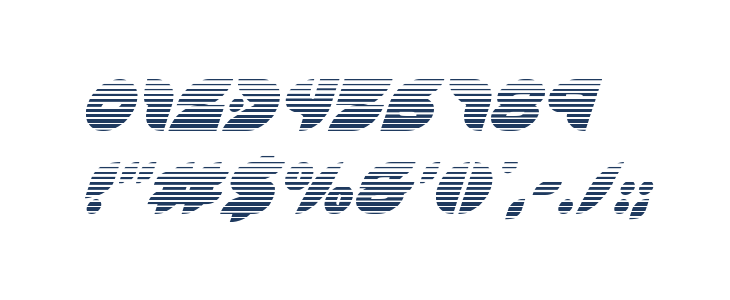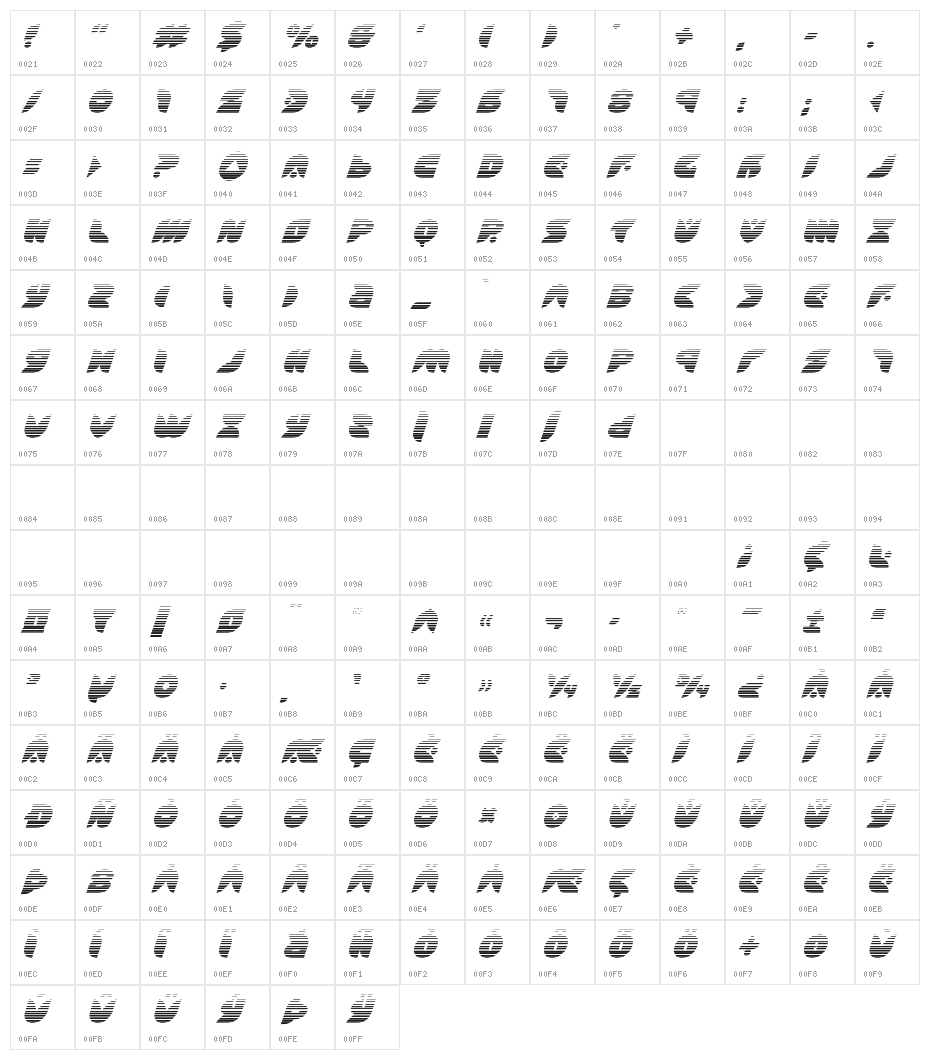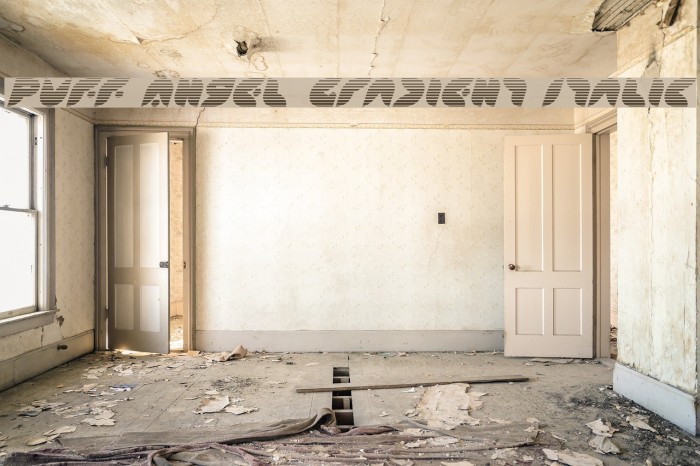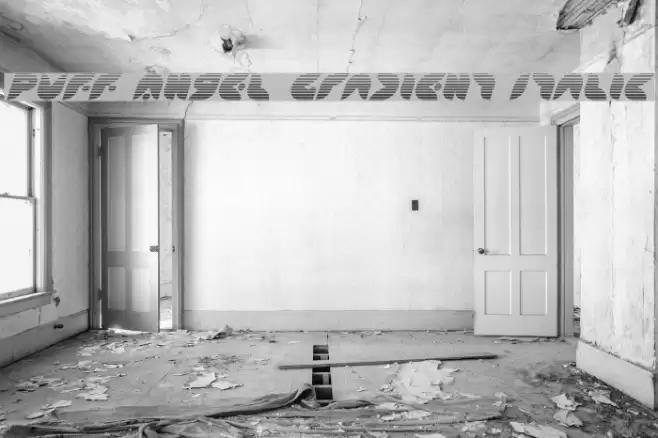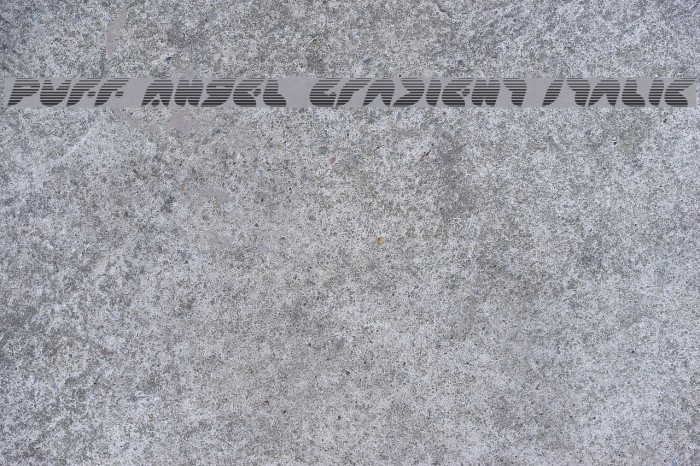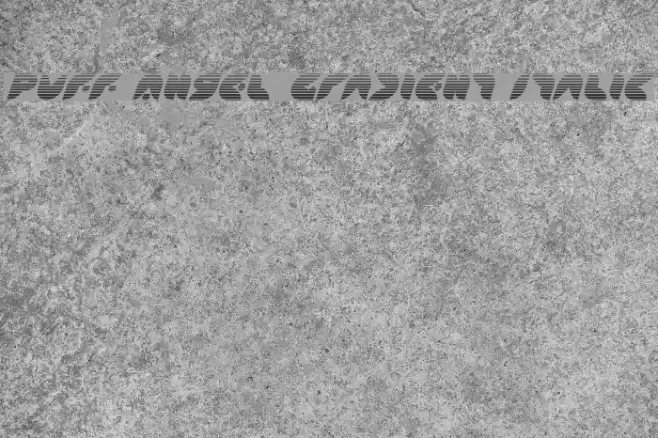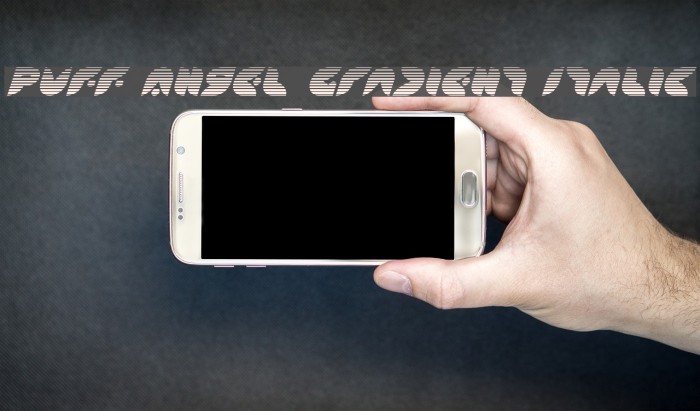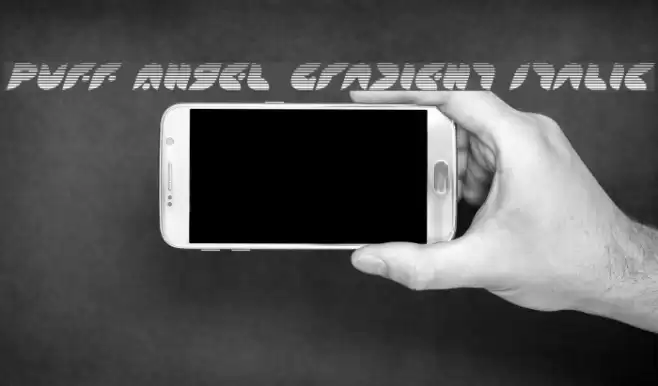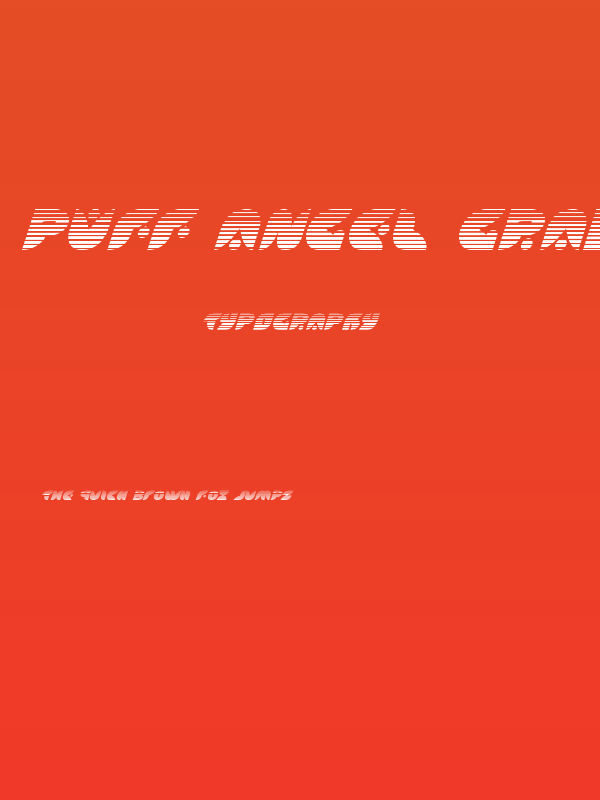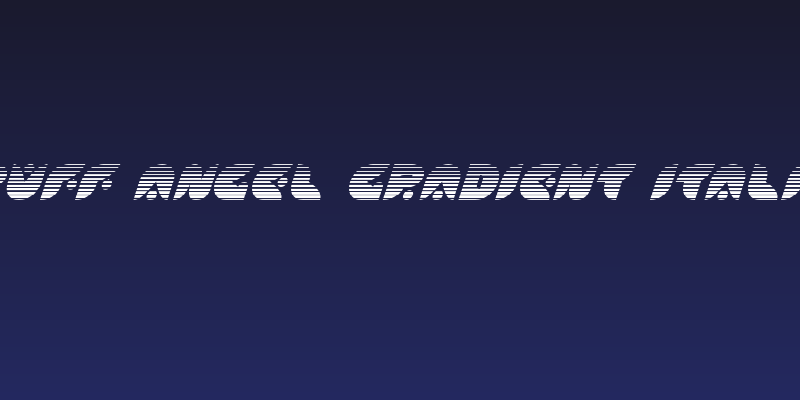
Puff Angel Gradient Italic Font
Puff Angel Gradient Italic Description
This font features a unique, modern design with a gradient effect created by horizontal lines that form each character. The letters are bold and italicized, giving them a dynamic and futuristic appearance. The style is consistent across uppercase, lowercase, numbers, and special characters, maintaining a cohesive look. The horizontal lines create a sense of movement and energy, making it stand out as a decorative choice. The font's distinct style is suitable for projects that require a bold statement or a modern, edgy aesthetic.